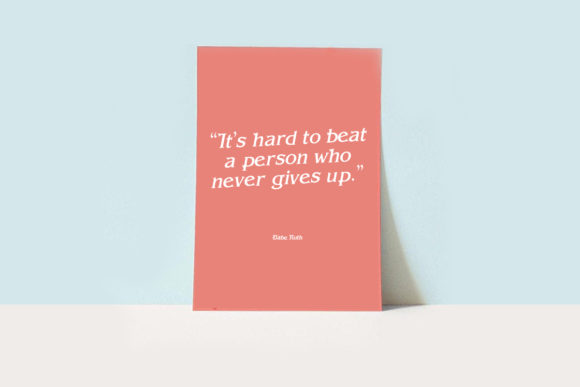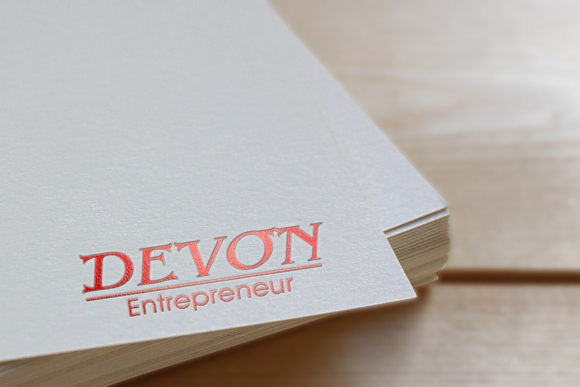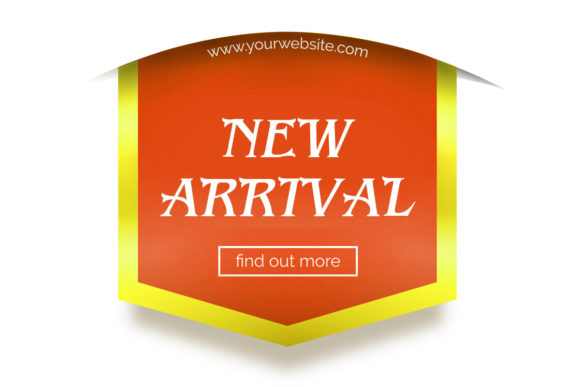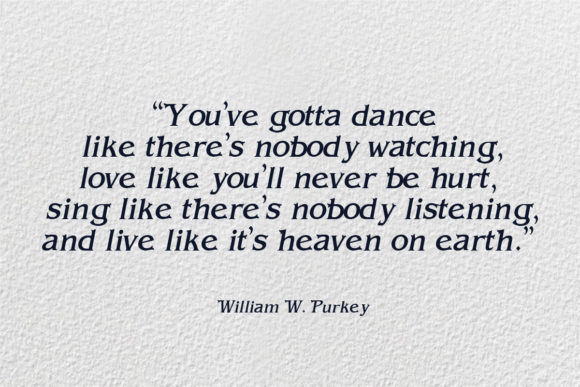
Astrantia Font: Elevate Your Designs with Elegance and Sophistication
In the world of typography, fonts play a crucial role in conveying the tone and personality of a brand or design. For designers and crafters seeking to add a touch of elegance and uniqueness to their projects, the Astrantia Font is an excellent choice. This stunning serif font is characterized by its smooth style, making it perfect for fashion branding, editorial designs, and a wide range of creative applications.
What is Astrantia Font?
Astrantia Font is a beautifully crafted serif font, designed to bring a sense of sophistication and refinement to any design project. Its elegant and unique style sets it apart from other fonts, making it an excellent addition to any designer’s toolkit. Whether you’re working on a fashion brand, editorial layout, or any other project that requires a touch of luxury, Astrantia Font is sure to impress.
Key Features of Astrantia Font
- Elegant and Unique Style: Astrantia Font boasts a distinctive and refined style that adds a touch of sophistication to any design.
- Smooth Style: The font’s smooth lines and curves create a sense of fluidity, making it perfect for designs that require a sense of movement and elegance.
- Serif Font: As a serif font, Astrantia Font features small lines or flourishes at the ends of the letters, adding to its classic and sophisticated feel.
- Fashion Branding and Editorial Designs: Astrantia Font is specifically designed for fashion branding and editorial designs, making it an excellent choice for designers working in these fields.
Benefits of Using Astrantia Font
So, why choose Astrantia Font for your design projects? Here are just a few benefits of using this stunning font:
- Adds Elegance and Sophistication: Astrantia Font brings a level of refinement and luxury to any design, making it perfect for high-end brands and editorial layouts.
- Versatile: This font can be used in a wide range of design applications, from fashion branding and editorial designs to packaging and digital media.
- Easy to Read: Despite its elegant style, Astrantia Font remains highly legible, making it perfect for body text and headlines.
- Unique and Memorable: Astrantia Font’s distinctive style ensures that your designs will stand out from the crowd, making it an excellent choice for brands looking to establish a strong visual identity.
How to Use Astrantia Font in Your Designs
Using Astrantia Font in your designs is easy and straightforward. Here are a few tips to get you started:
- Pair it with Other Fonts: Astrantia Font pairs well with a range of other fonts, from sans-serif fonts like Arial and Helvetica to script fonts like Pacifico and Great Vibes.
- Experiment with Font Sizes: Astrantia Font looks great in a range of font sizes, from large headlines to smaller body text.
- Play with Colors: Astrantia Font can be used in a range of colors, from classic black and white to bold and bright hues.
In conclusion, Astrantia Font is an elegant and unique serif font that’s perfect for designers and crafters seeking to add a touch of sophistication and refinement to their projects. With its smooth style, classic serif design, and versatility, this font is sure to become a staple in any designer’s toolkit. So why wait? Add Astrantia Font to your projects with confidence, and get ready to elevate your designs to the next level.